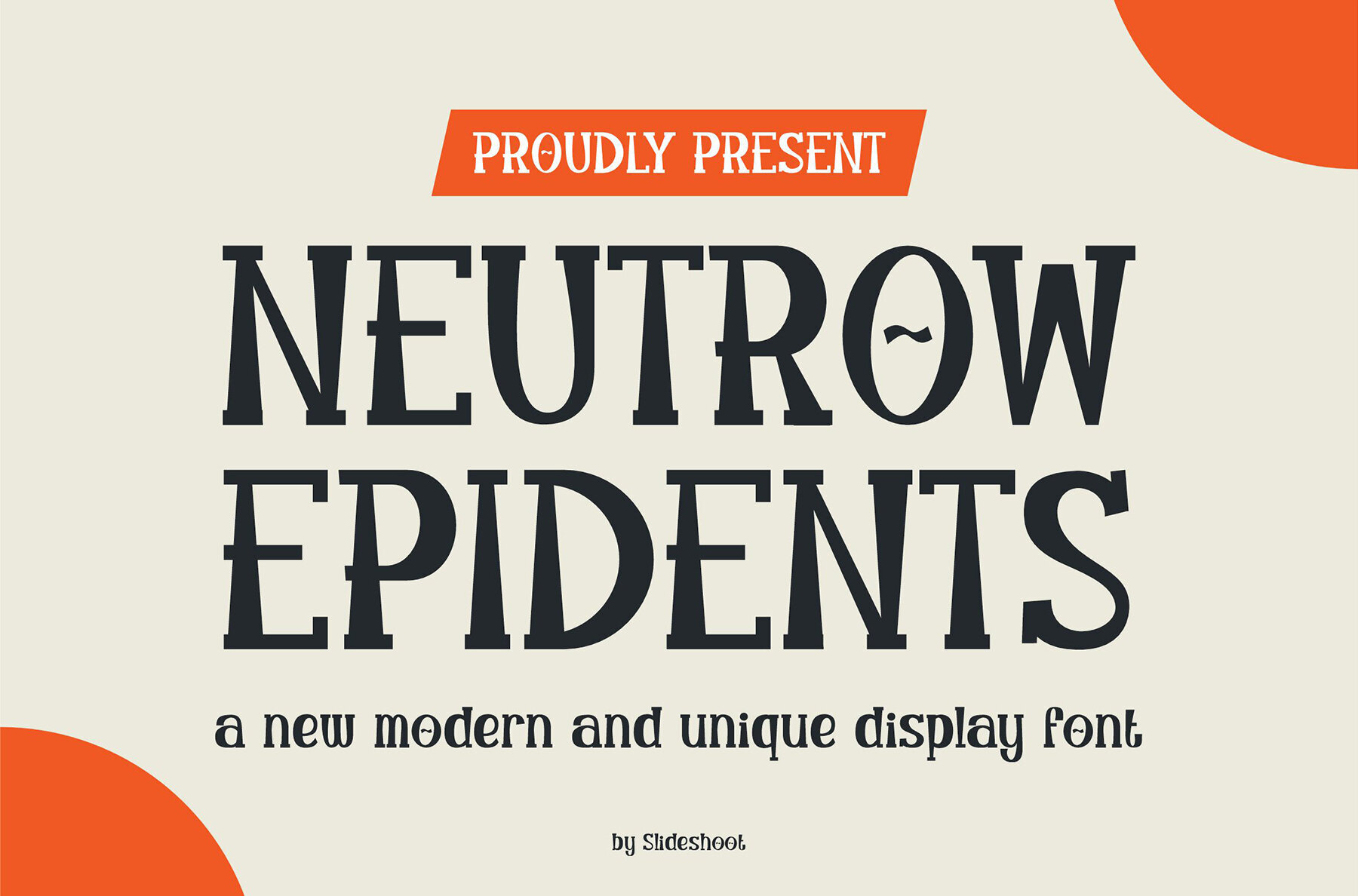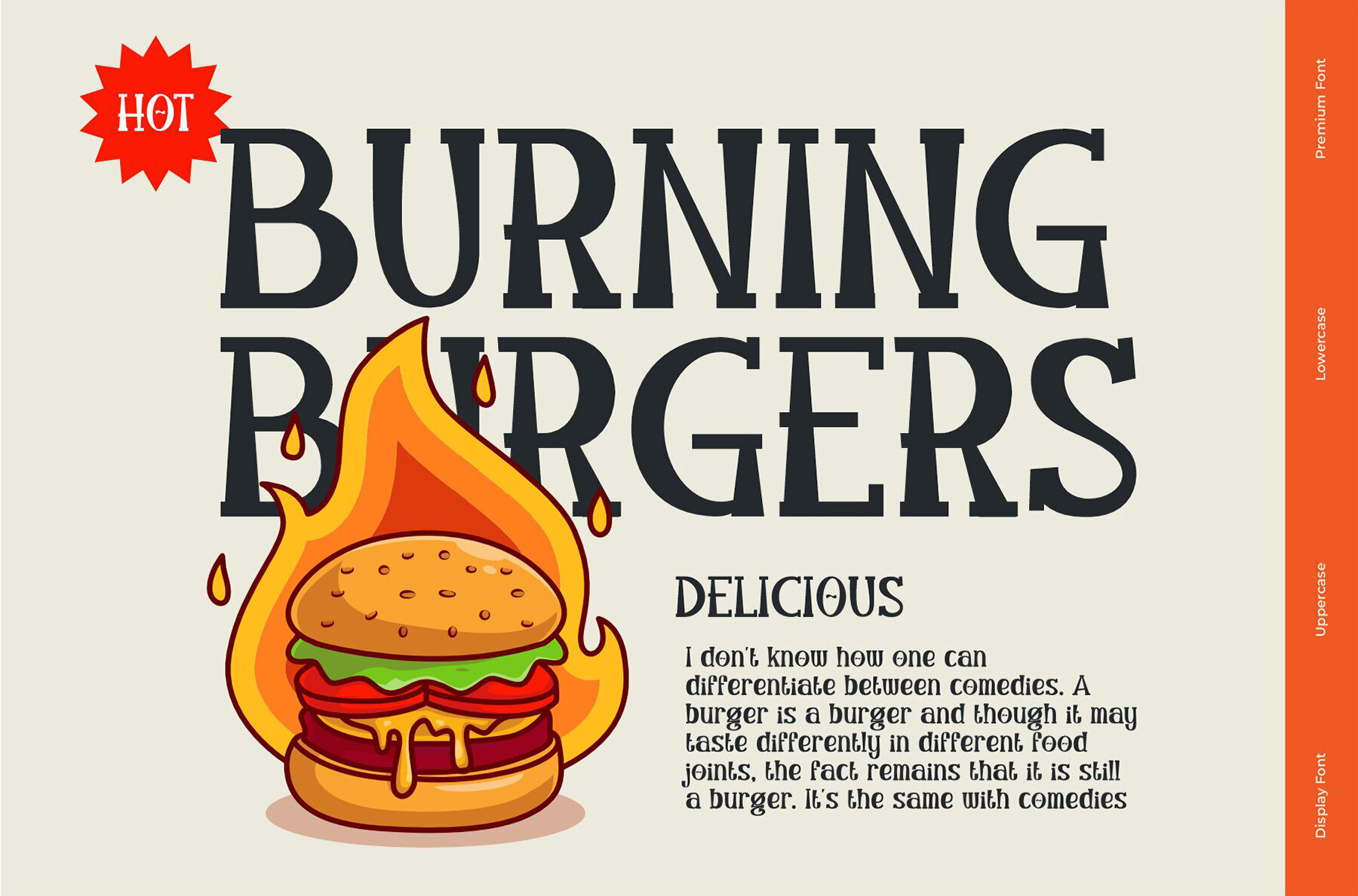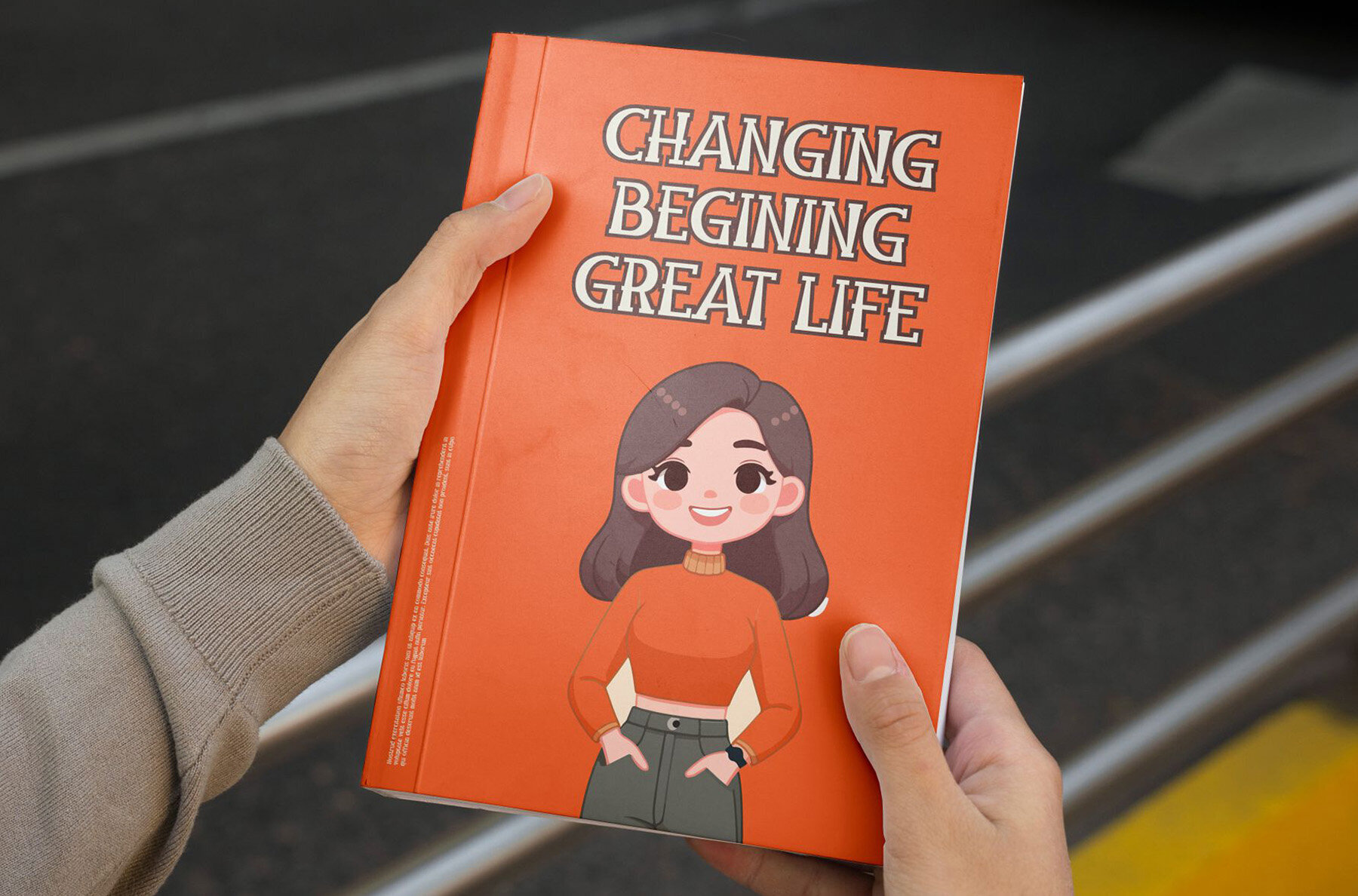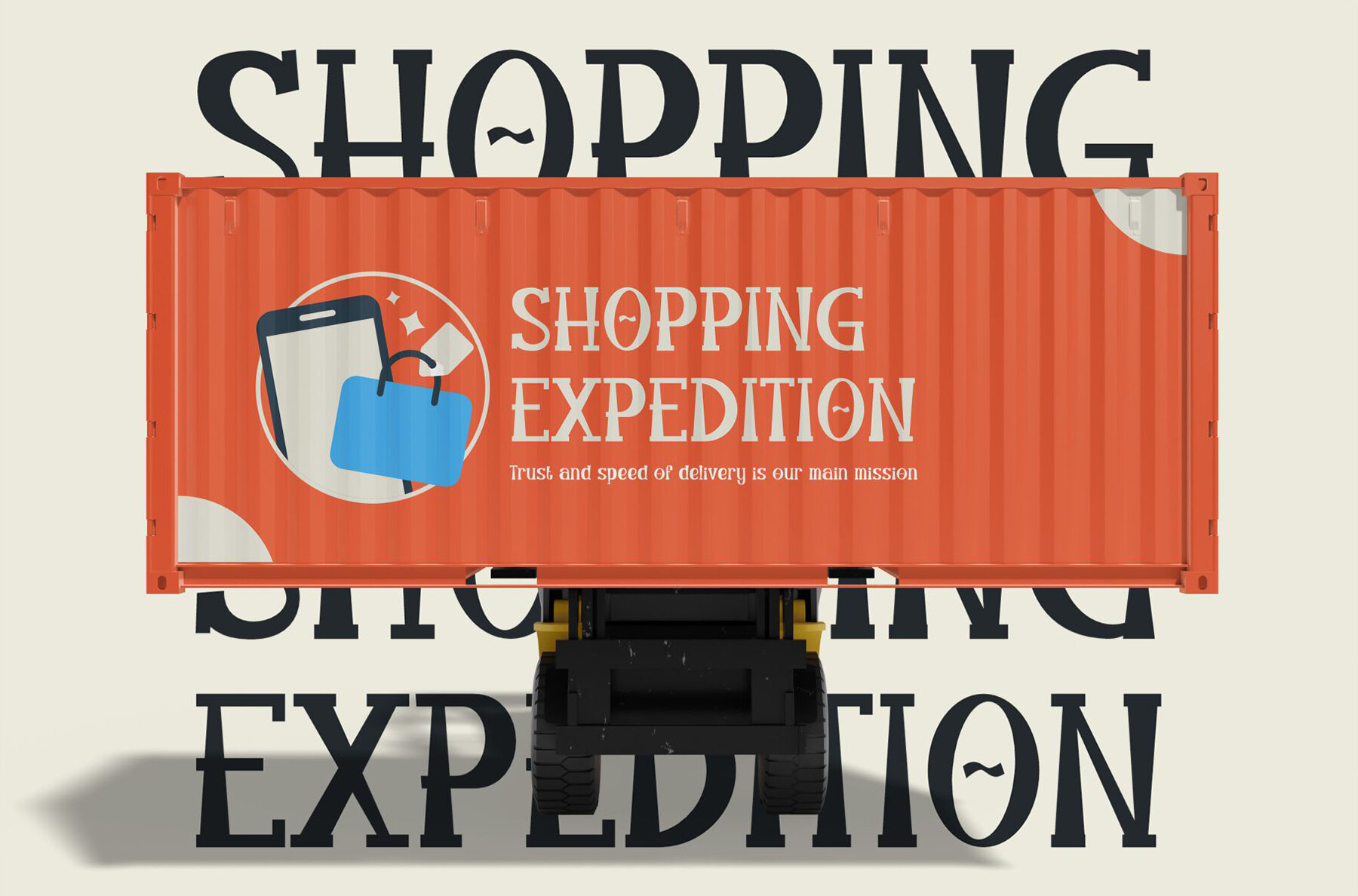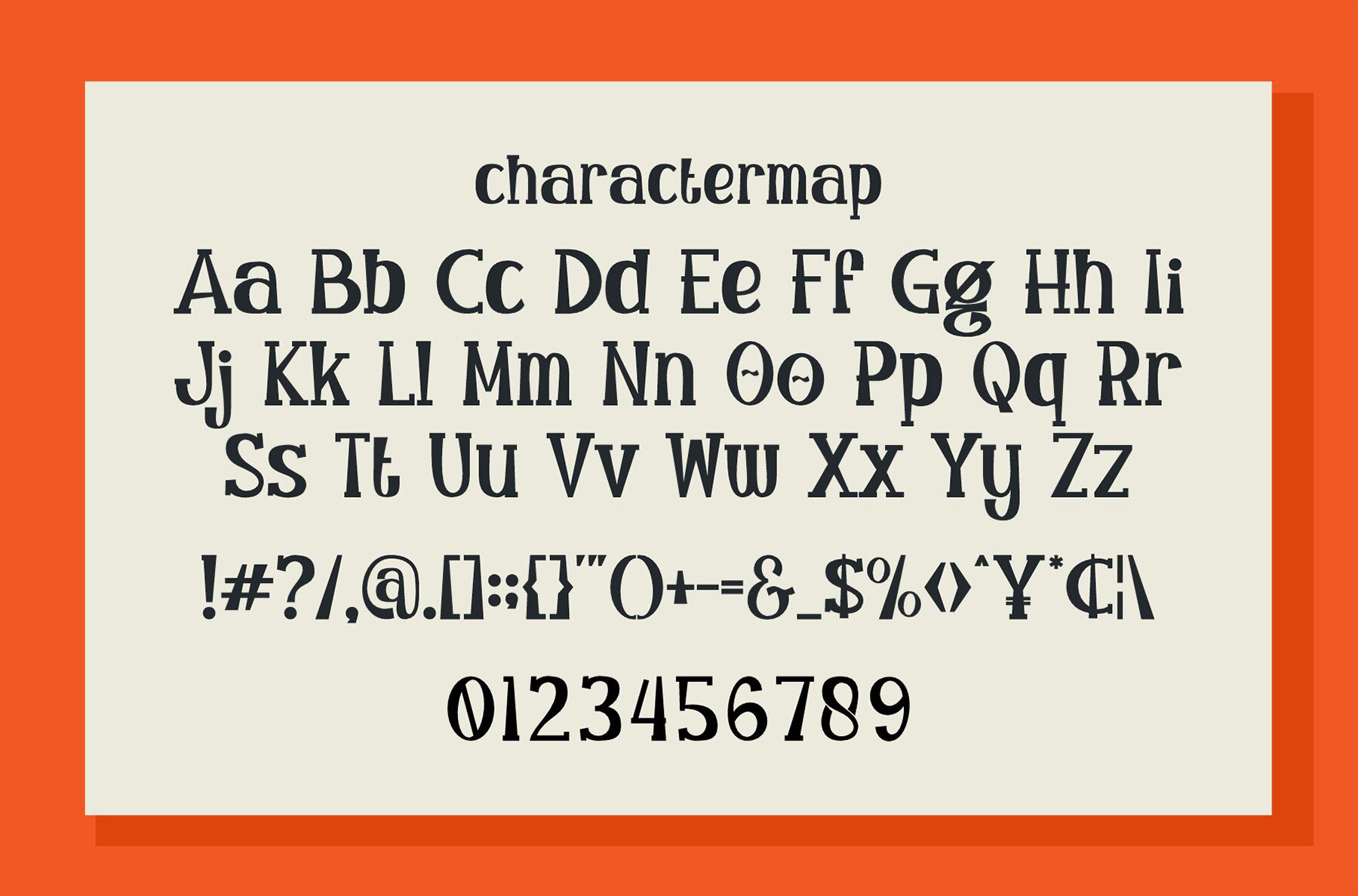
Newtrow Epidents Font
Newtrow Epidents
Newtrow Epidents is a contemporary and lively display font with a distinctive wood-themed aesthetic. Its playful and bouncy design makes it a versatile choice for a range of creative projects. This font is well-suited for use in invitation cards, company logos, movie titles, business cards, book titles, and brand names, offering a unique flair to any design.
- Ligature support
- Uppercase and lowercase characters
- Numbering and punctuation
Whether you're designing logos or crafting memorable brand identities, Newtrow Epidents provides a charming and modern touch to elevate your projects.